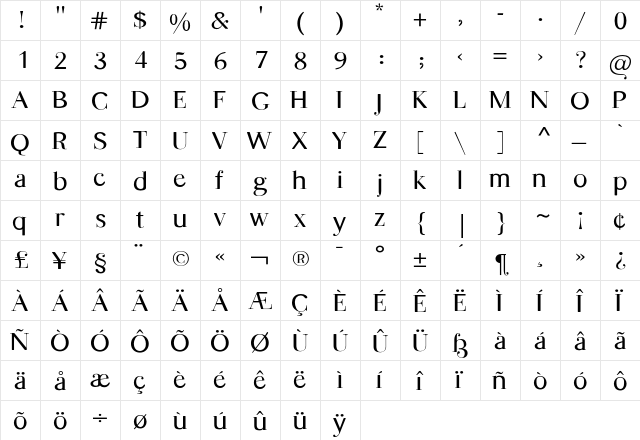
Leash Regular Font Preview
Leash Regular
Leash Regular Font Details
Design Context for Leash Typeface
Leash is a composed and adaptable typeface that performs quietly and consistently across a wide range of design contexts.